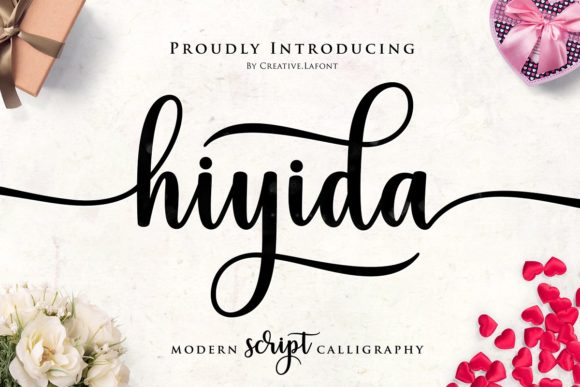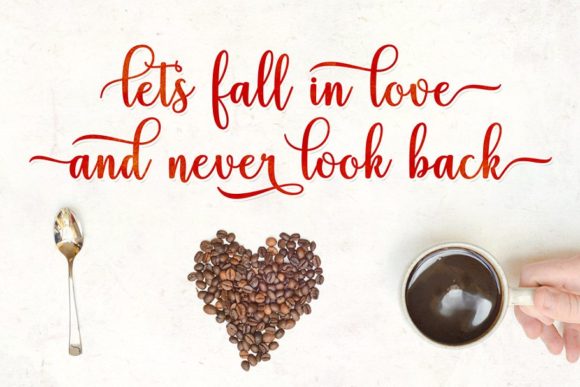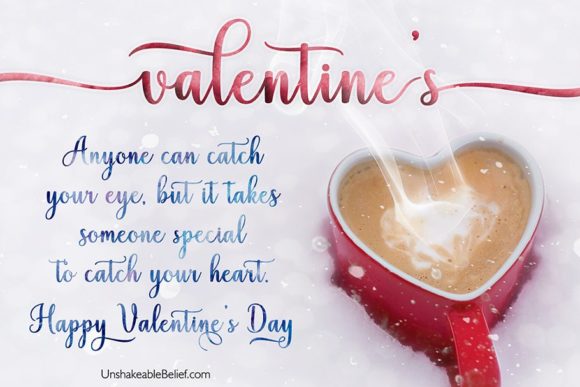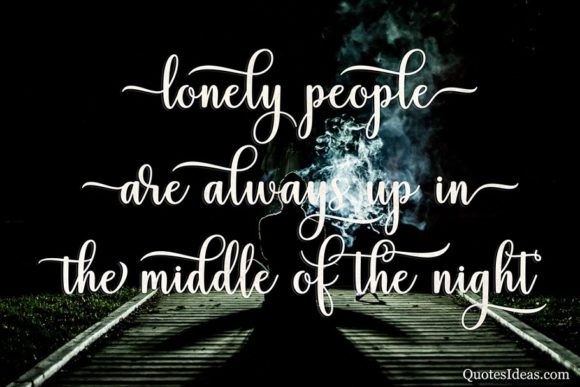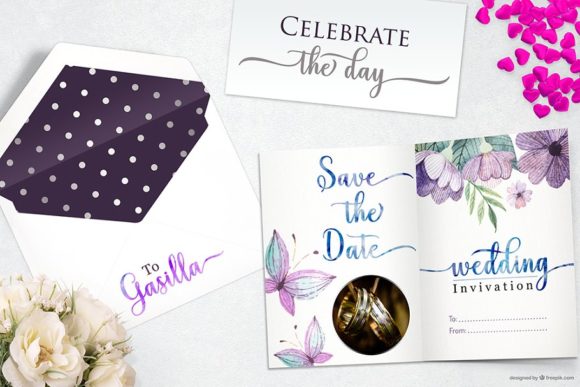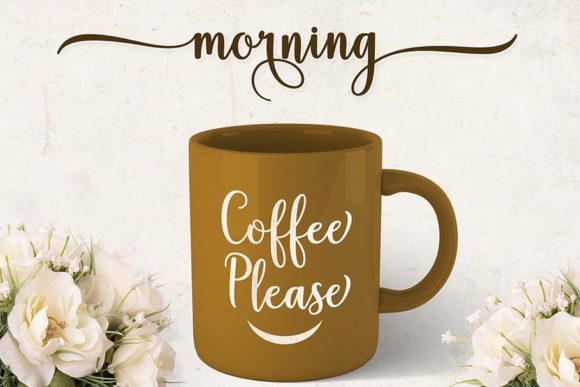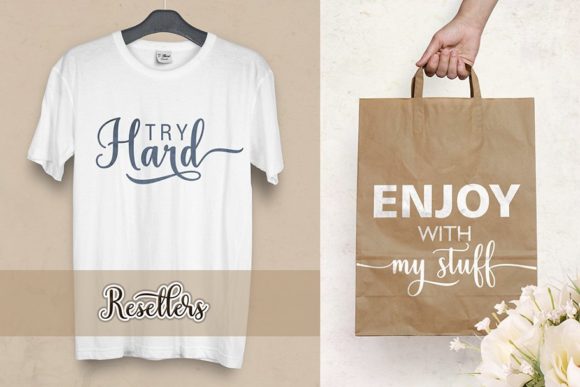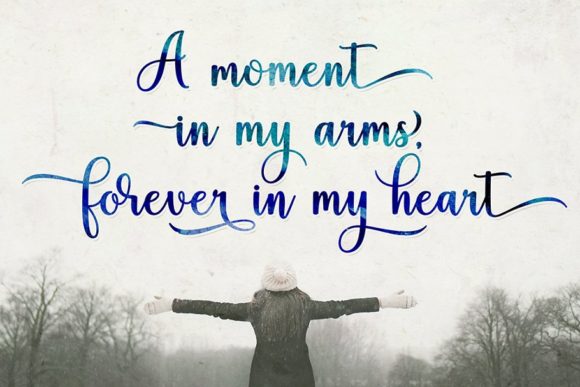
Hiyida Script Font
About Hiyida Script Font
Hiyida Script is modern script font where every single letter has been carefully crafted to make your text look beautiful.